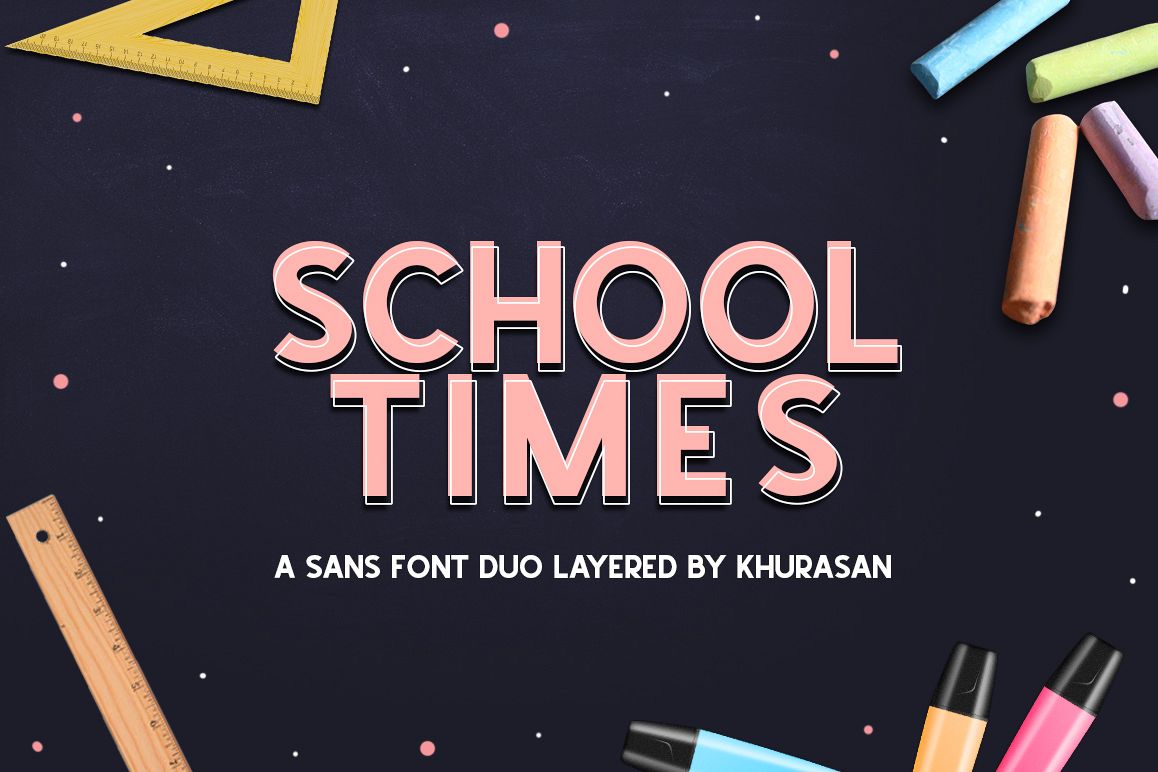
School Times font is a sans serif type of bold and outline type. School Times has two different styles, regular & outline. School Times font it’s perfect for , poster, logo, magazine, cover, banner, tshirt and headers, or even large-scale artwork.